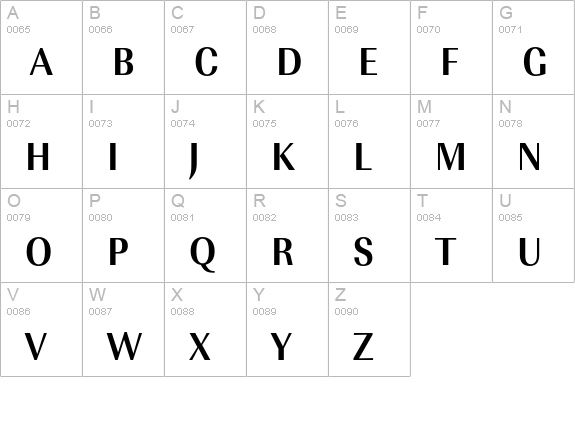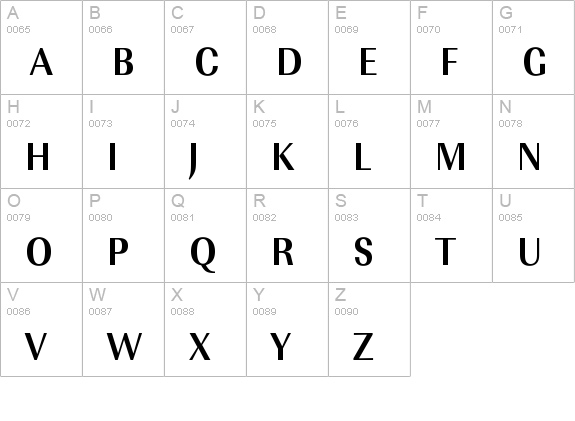
URWImperialTOTExtNar Bold Font Details
URWImperialTOTExtNar Bold is a strong, high-contrast variant in the URWImperialTOTExtNar typeface family \xE2\x80\x94 well suited to headlines, attention-grabbing titles, and strong calls-to-action.
URWImperialTOTExtNar Bold is a striking font that commands attention with its bold and elegant design. Perfect for making a statement in headlines, titles, or other prominent text, this typeface exudes confidence and sophistication. Its strong, clean lines give it a modern and professional look, making it ideal for a wide range of design projects. And the best part? URWImperialTOTExtNar Bold is available for free download at FontsMarket.com. This means you can easily access this high-quality font without any cost, making it a valuable addition to your font library. Don't miss out on the opportunity to enhance your designs with this bold and impactful typeface today.